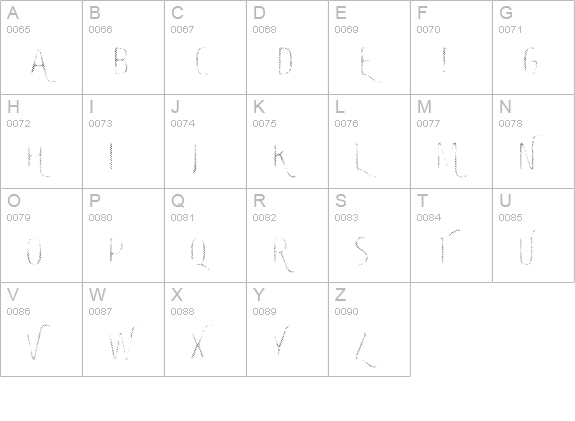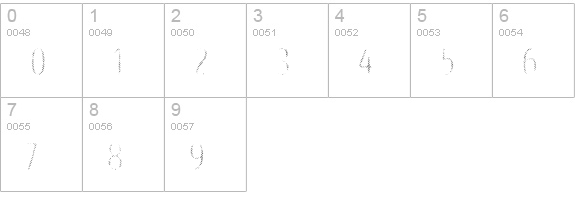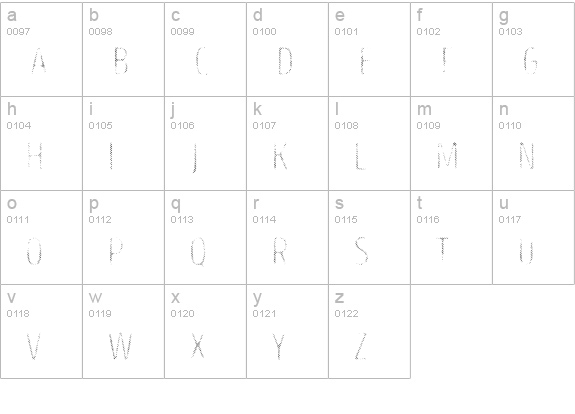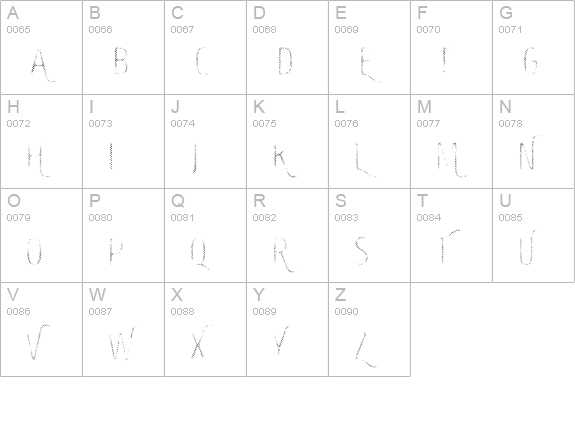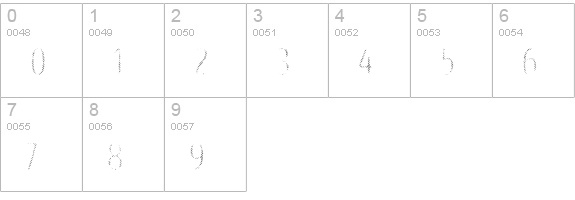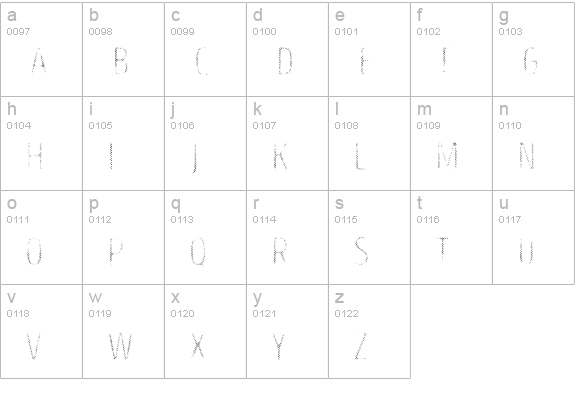
Intro Head R UC L Font Details
The Intro Head R UC L font is a stylish and modern typeface that exudes elegance and sophistication. With its unique design and sleek curves, this font is perfect for adding a touch of class to any project. Whether you're designing a logo, creating a poster, or crafting a website, Intro Head R UC L will make your text stand out and capture the attention of your audience. Best of all, this font is available for free download at FontsMarket.com. You can easily access this beautiful typeface and use it in your projects without any cost. Don't miss out on the opportunity to enhance your designs with the Intro Head R UC L font today!